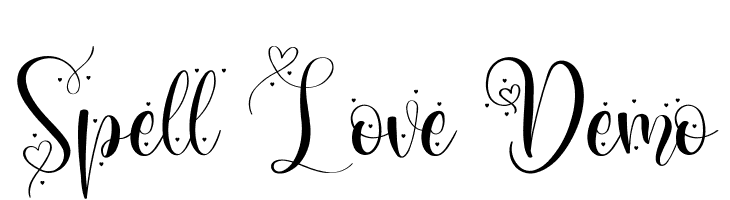
Hand-drawn botanical and abstract dingbat collection.
( tricky )
A playful and whimsical collection of hand-drawn doodles.
( 7NTypes - Situjuh Nazara - 7ntypes.com )
Hand-drawn, whimsical dingbat icons with a warm, playful style.
( Allie Dempsey - obscure.wildspell.com/ )
A playful handwritten font with a whimsical and friendly style.
( Charlee Sathiraboot )
A playful, handwritten font with whimsical and charming characters.
( Des Gomez )
A playful, hand-drawn font with tall, narrow letters and quirky details.
( FancyFrenzy - Francy van Lierop )
A romantic, heart-themed handwritten font perfect for love-themed projects.
( Fargun Studio - Fajar Gunawan - creativemarket.com/FargunStudio )
Playful hand-drawn decorative swashes and doodles.
( Fontscafe.com - fontscafe.com/ )
A decorative, heart-themed font with romantic symbols and phrases.
( Here Be Monsters - monsterswithin.com )
A modern collection of decorative symbols and icons with a clean, minimalistic style.
( Intellecta Design - Paulo W - new.myfonts.com/foundry/Intellecta_Design/?refby=paulow )
Ornate religious dingbats with vintage engraving details.
( Intellecta Design - Paulo W - new.myfonts.com/foundry/Intellecta_Design/?refby=paulow )
Intricate ornamental glyphs with heraldic and flourish motifs.
( Jecko Development - www.jeckodevelopment.com/ )
A decorative font made of heart shapes, perfect for romantic and playful designs.
( Meaghan Wong - 4am.firewish.net )
A whimsical collection of hand-drawn heart designs with varied styles.
( Mercè SV )
A playful dingbat font with diverse heart and love-themed icons.
( MiniCandy - Miranda )
A whimsical collection of playful and enchanting dingbats featuring princess-themed symbols.
( Miranda Matthews )
A whimsical collection of hand-drawn symbols and doodles with a playful, informal style.
( Ms. DeVine - www.brushstock.com )
A playful, heart-themed decorative dingbat set.
( Paula Tennet )
A playful, heart-themed font with a hand-drawn, whimsical style.
( Peter A )
A playful collection of bold, easily recognizable symbols and icons.
( Southype - Rodrigo Gonzalez - www.southype.com )
A whimsical font with characters enclosed in heart shapes, ideal for romantic themes.
( aldedesign - Alde Saputro - creativemarket.com/aldedesign?u=aldedesign )
A playful, heart-accented decorative font with elongated, narrow characters.
( elharrak - elharrak fonts - el-harrak.blogspot.com/ )
Bold, graphic pictogram and logo set with a German theme.
( g14296 )
Outlined decorative dingbat font with playful icons and patterns.
( imagex - www.imagex-fonts.com )
A whimsical collection of heart-themed decorative symbols.
( imagex - www.imagex-fonts.com )
A playful, hand-drawn collection of romantic speech bubbles and doodles.
( imagex - www.imagex-fonts.com )